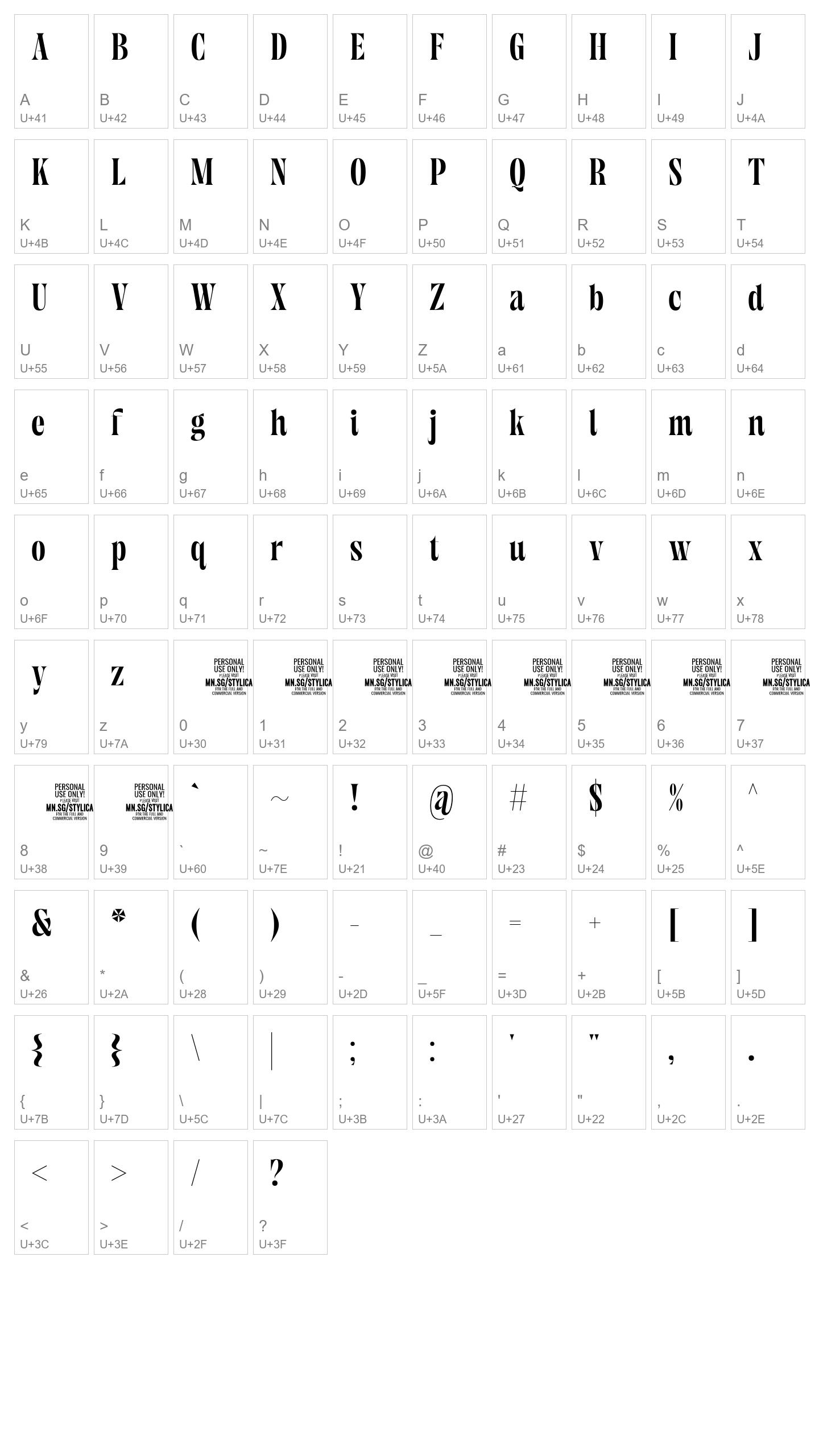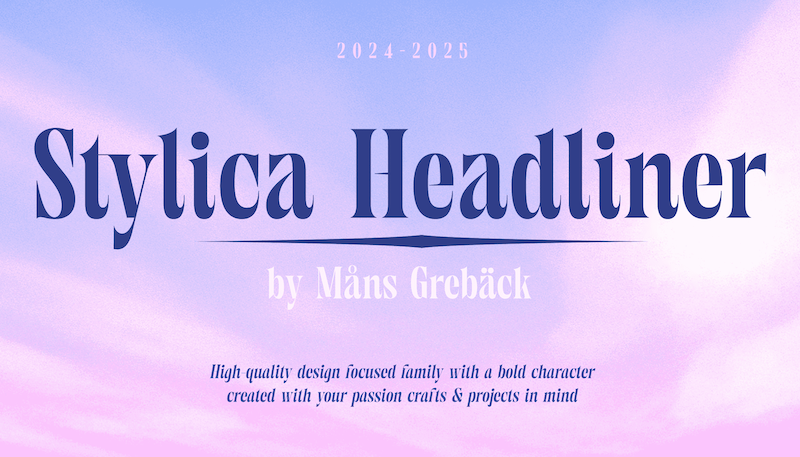
Stylica Headliner
Stylica Headliner is a bold serif font designed to make a strong impact.
Its heavy weight and sharp edges give it a confident presence with a modern take on classic serif elements.